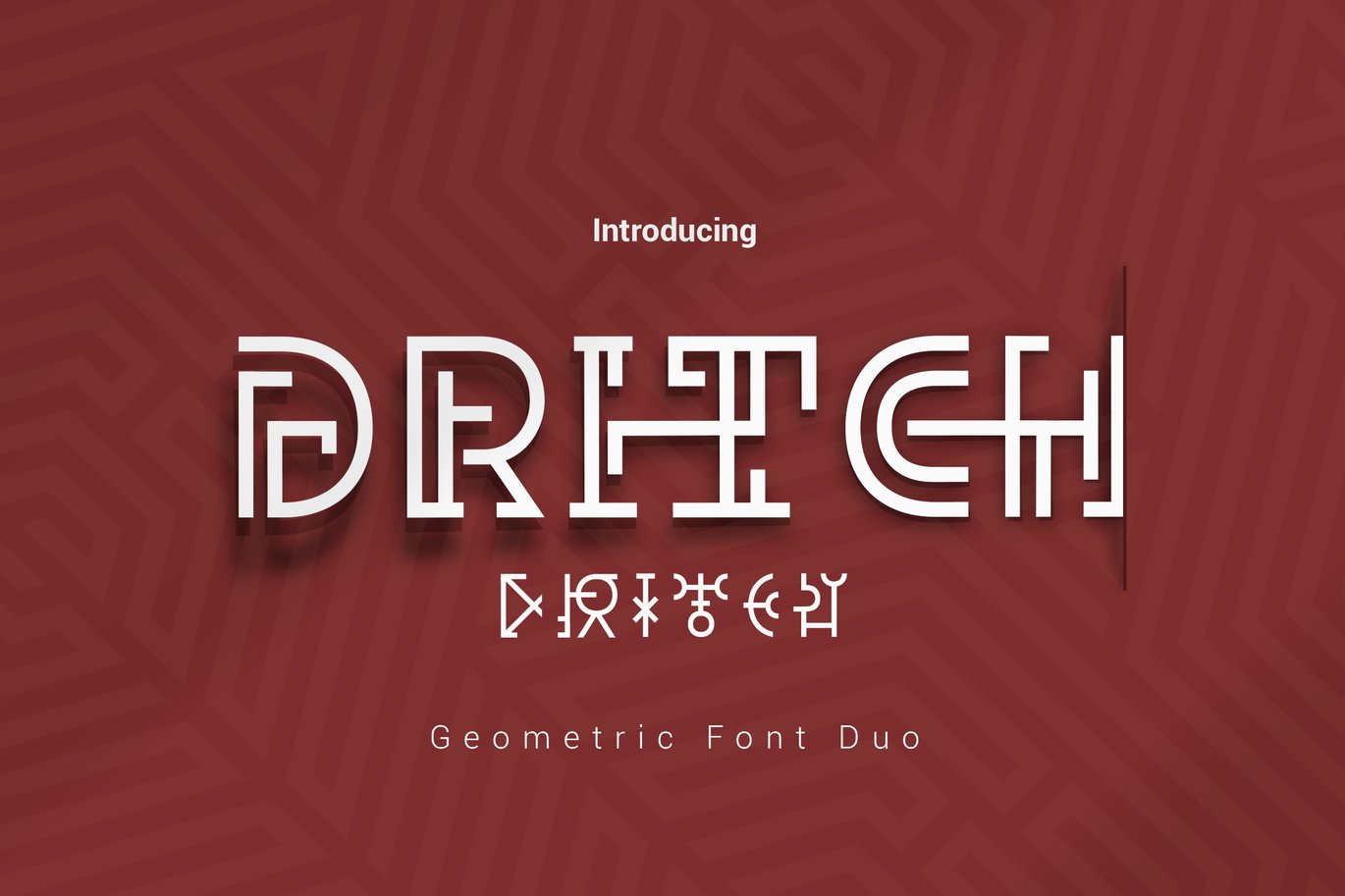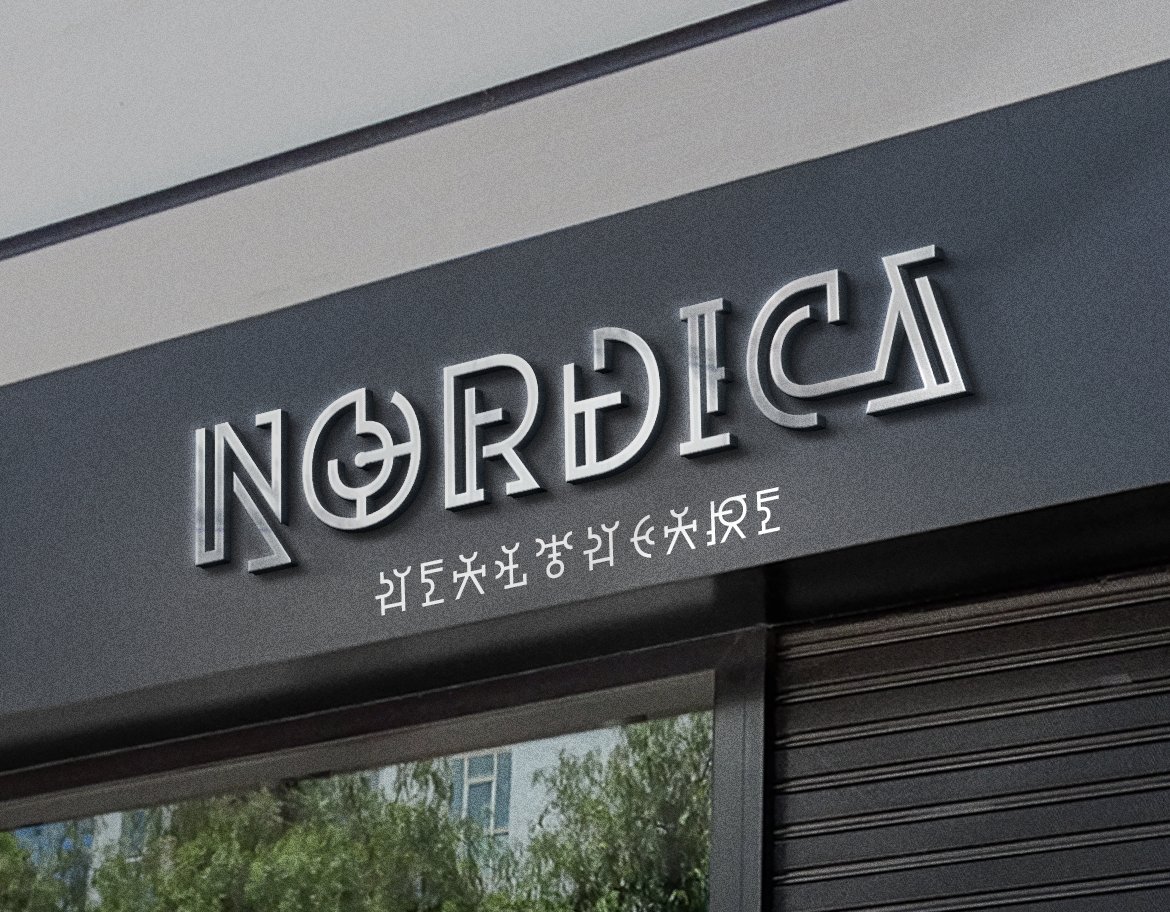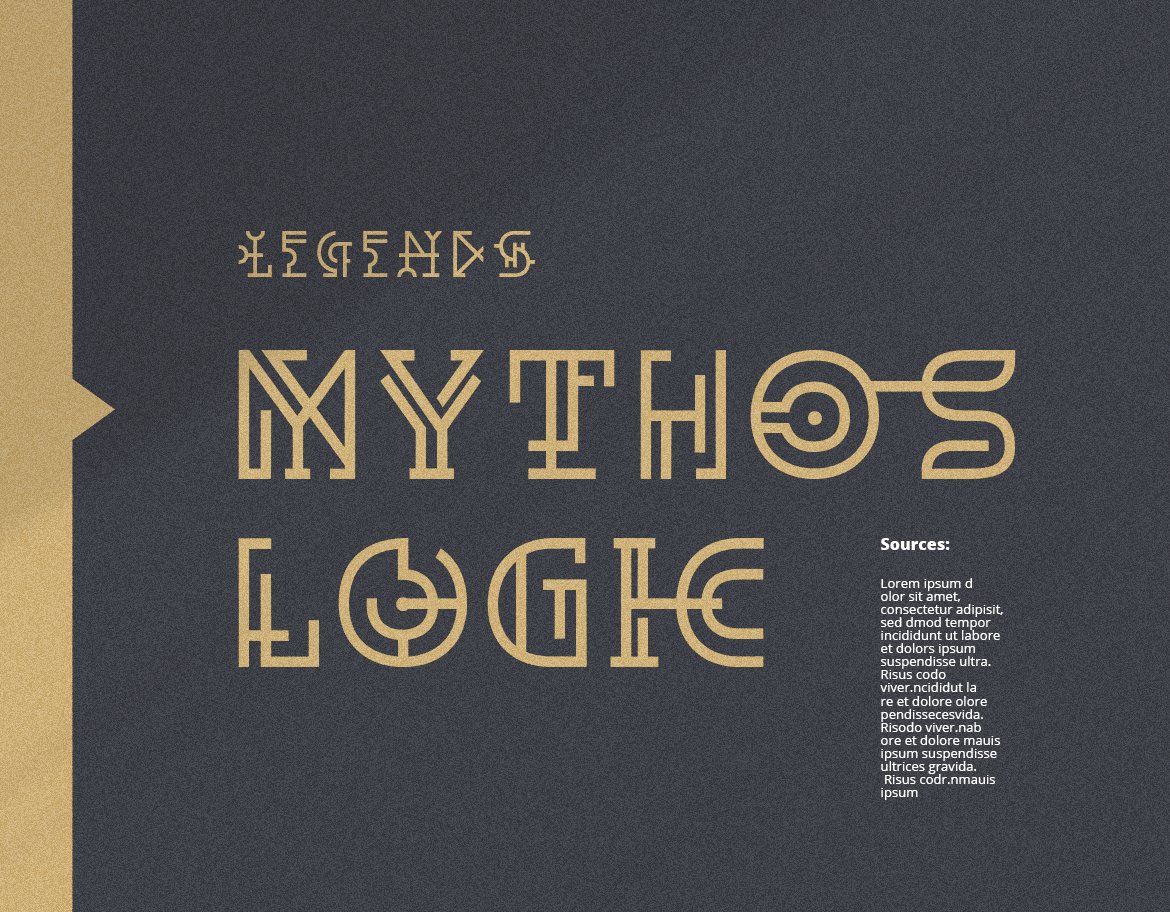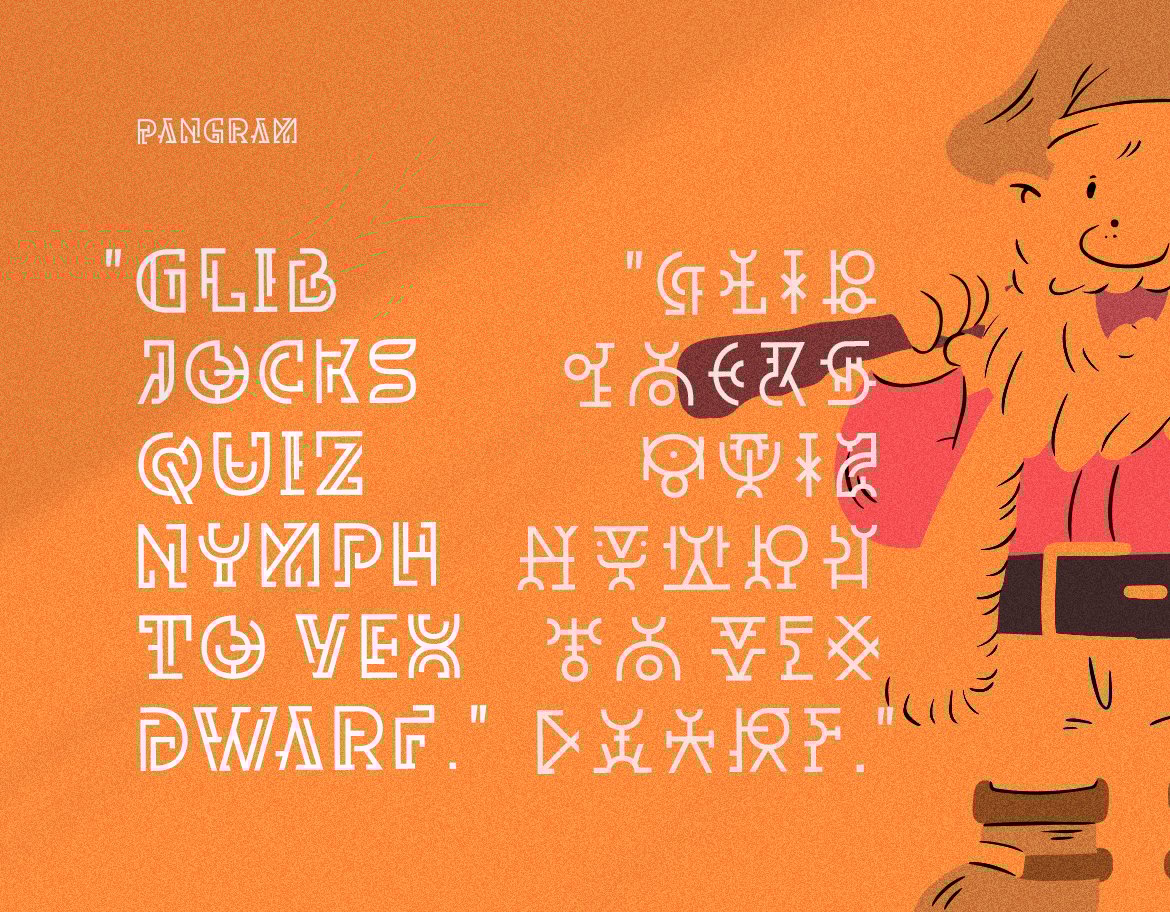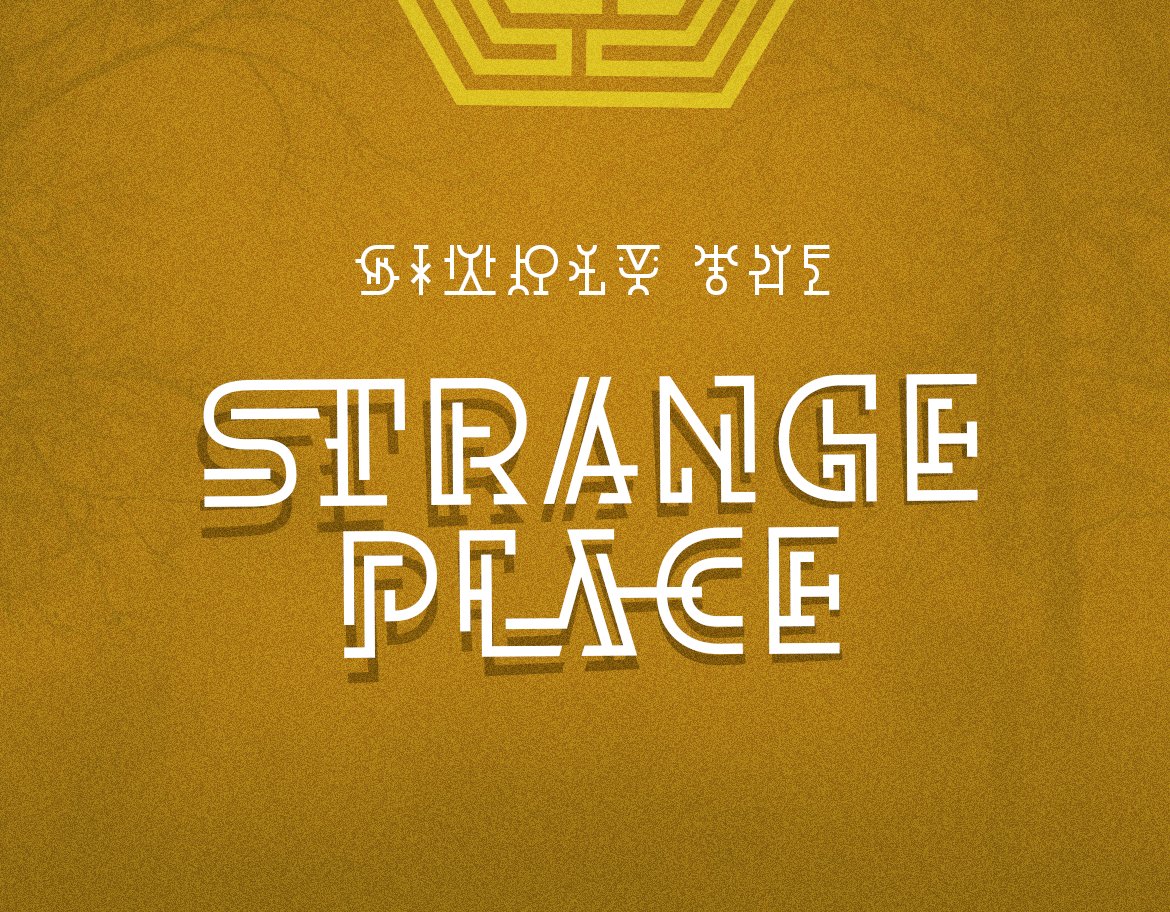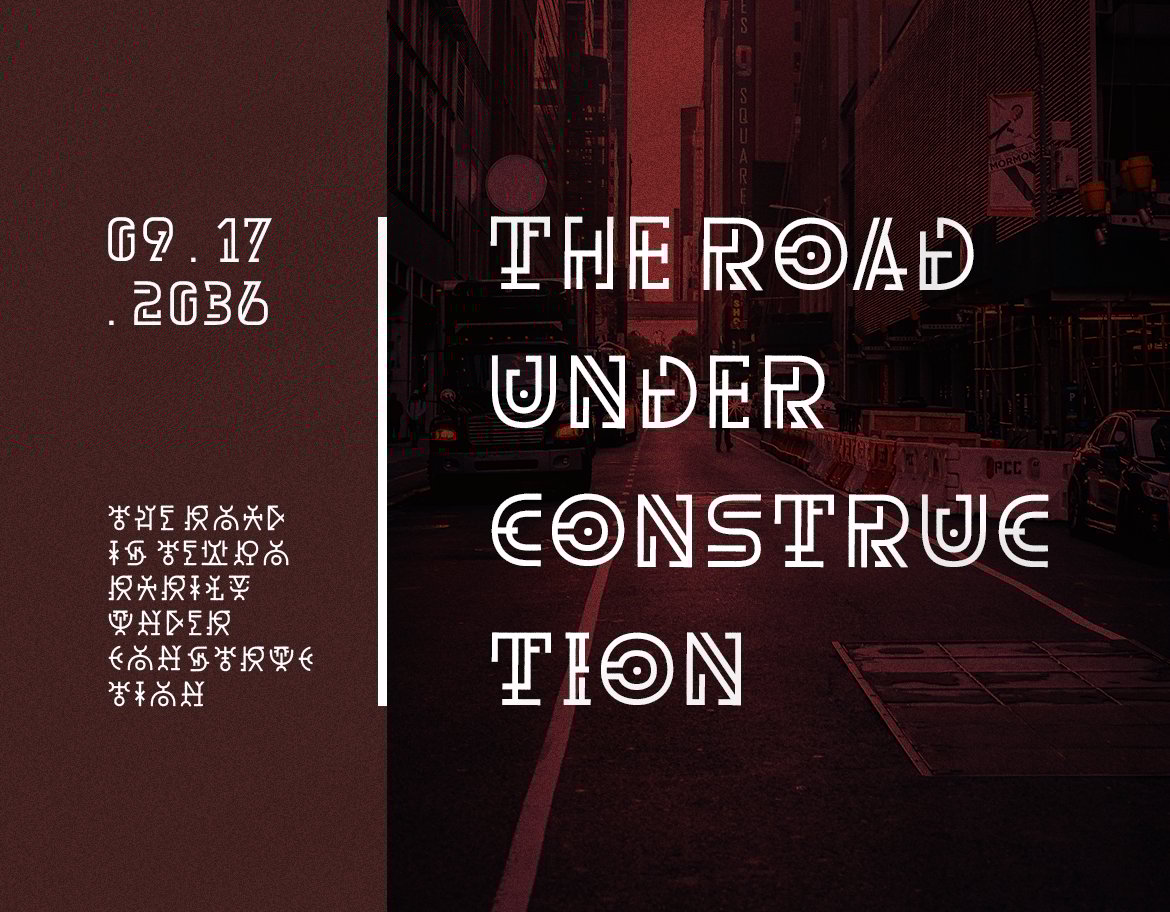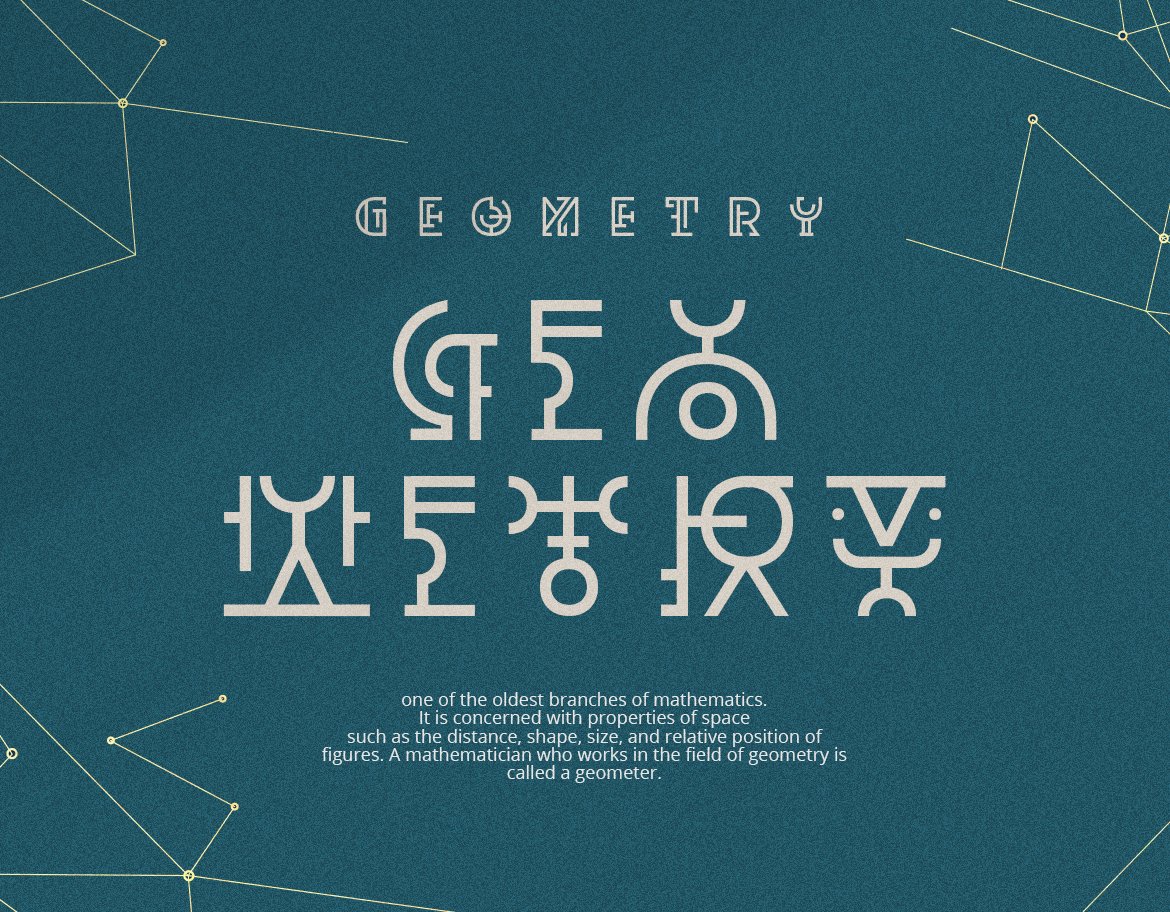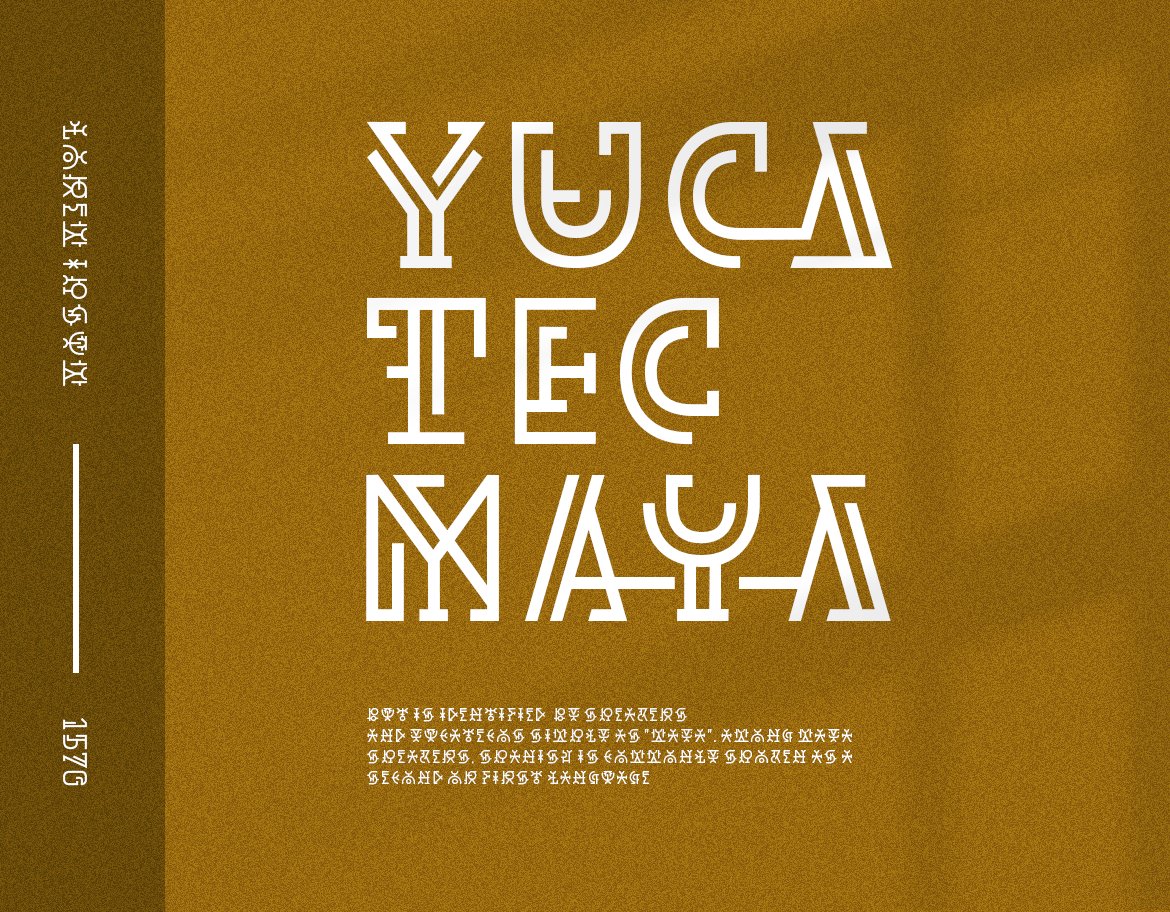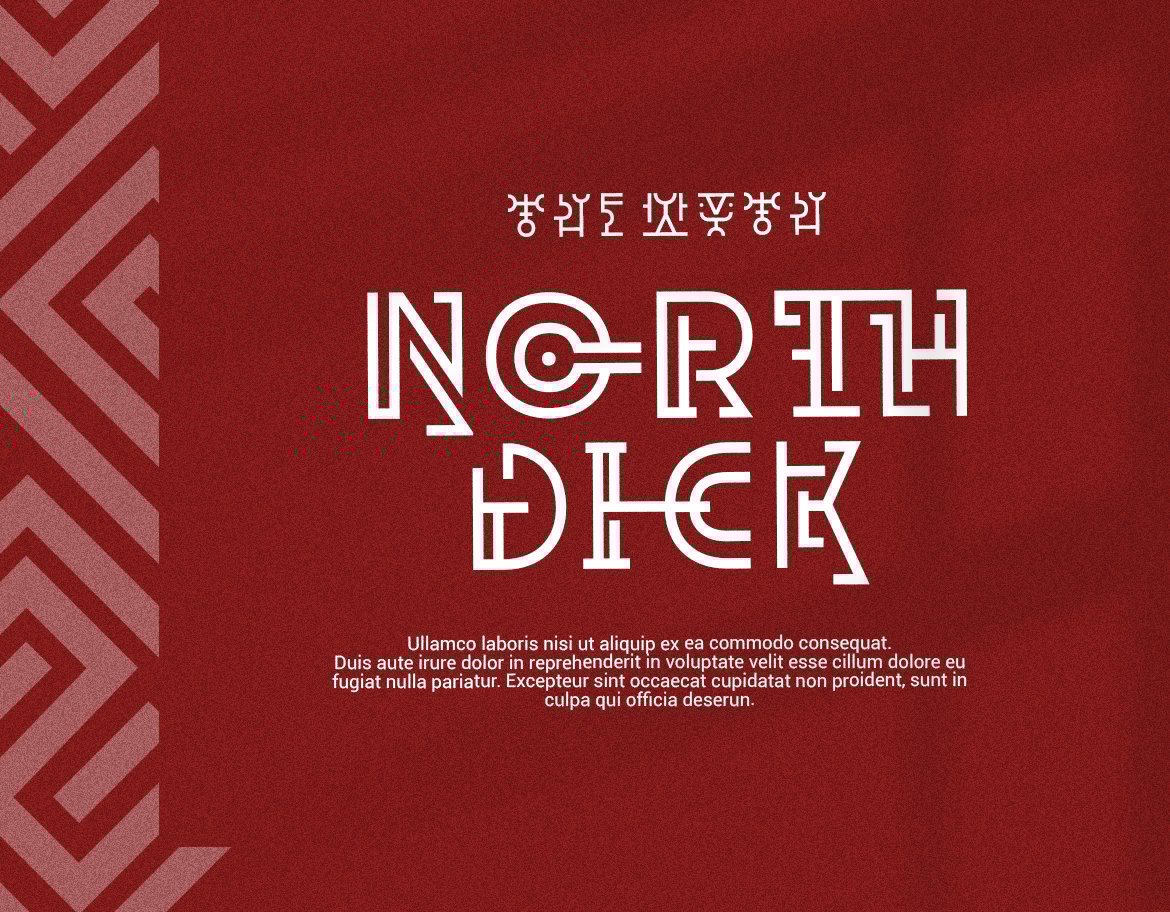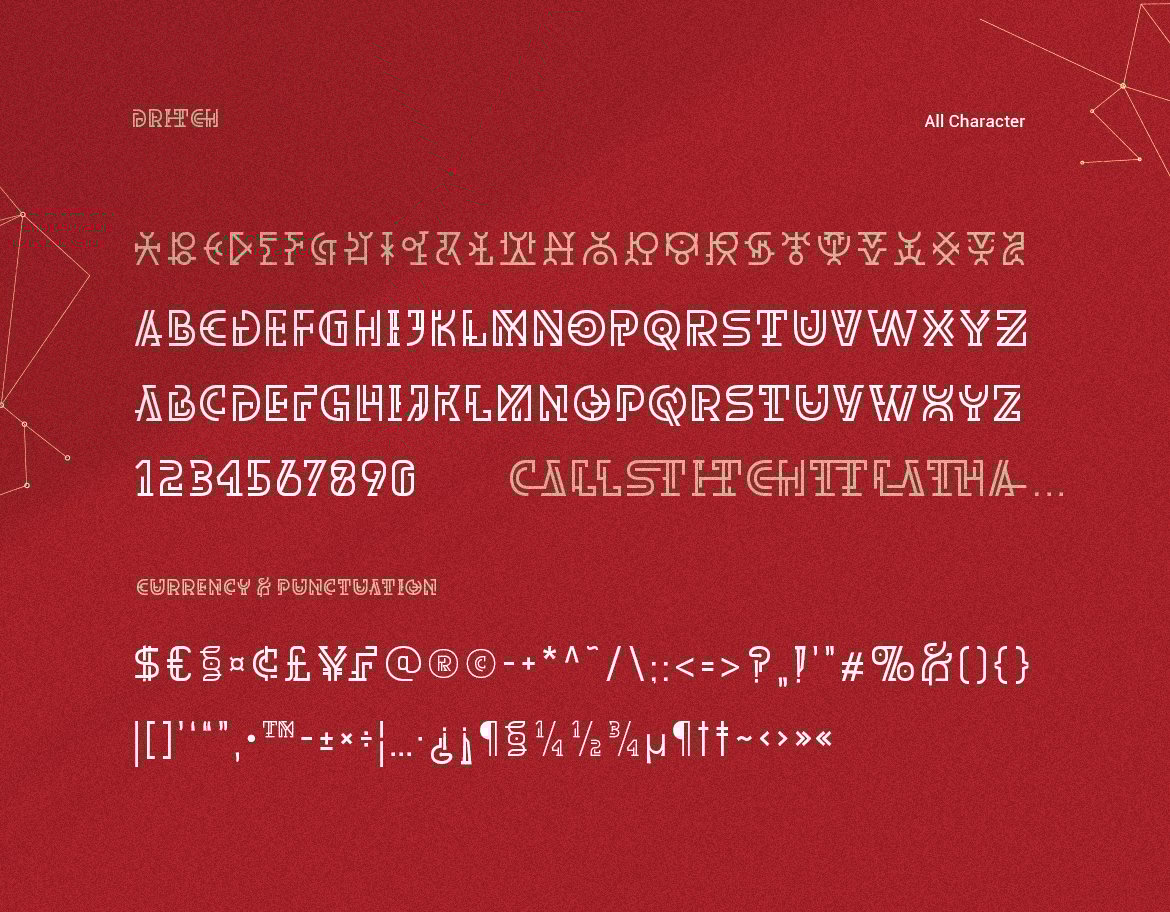
Dritch Geometric Font Duo
Dritch. is an Unique and fresh fonts with modern geometric style. It works with different themes such as mystical, tribal, ethnic, magical, and fantasy. The geometric, near-monoline construction generates classic and symbolic look. This font is Friendly and captivating in both lowercase and uppercase glyphs. Dritch is suitable for logo tagline, logotype, film titles, signs, magazine header, stationary and any other projects.
Dritch Features:
- Uppercase glyphs
- Lowercase glyphs
- Numeral and Punctuations
- Currency
- standard Ligatures
- Stylistic Alternates